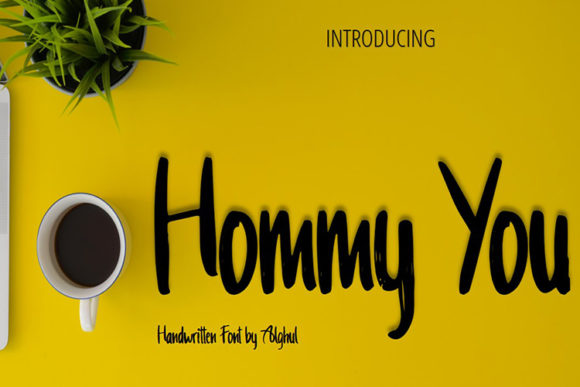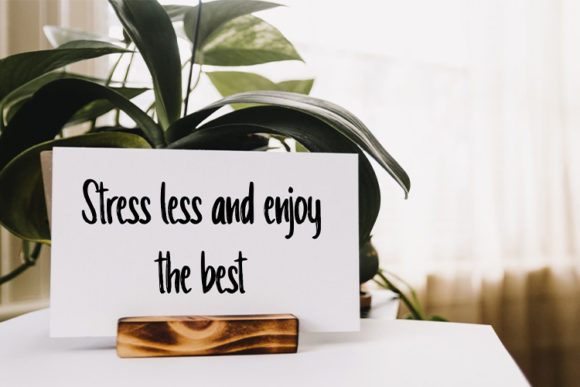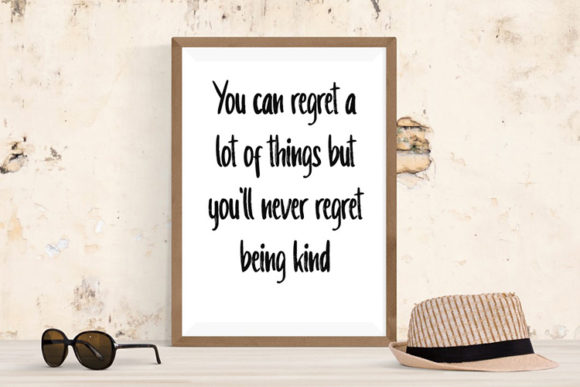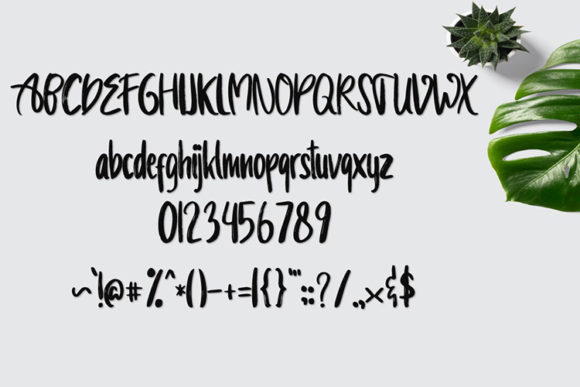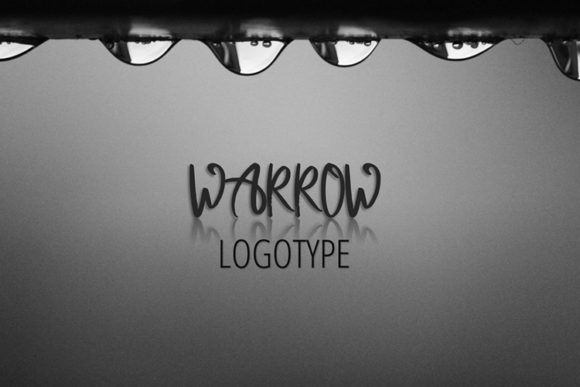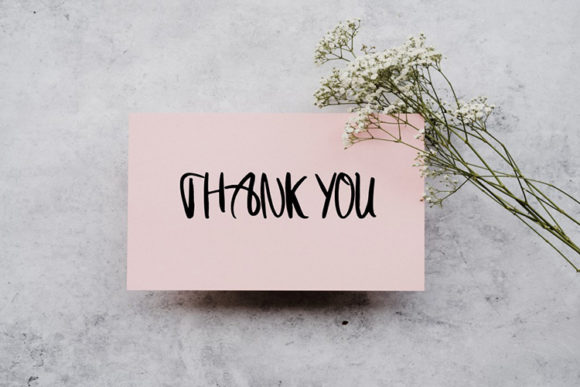
Hommy You results out of a stunning pairing of a brush pen and pencil that makes it look incredibly endearing and authentic. Use this gorgeous and unique handwritten font to bring any DIY project to life!